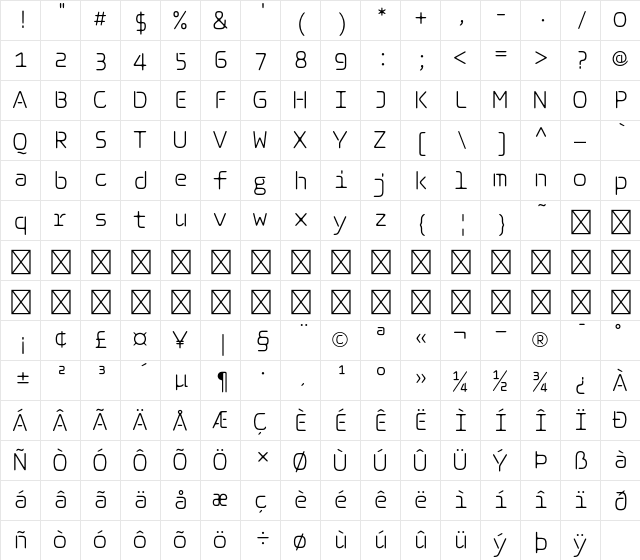
A-OTF Haruhi Gakuen L
Designer: Yasushi Saikusa
Design Context for A-OTF Haruhi Gakuen
A-OTF Haruhi Gakuen is a composed and adaptable typeface that performs quietly and consistently across a wide range of design contexts.